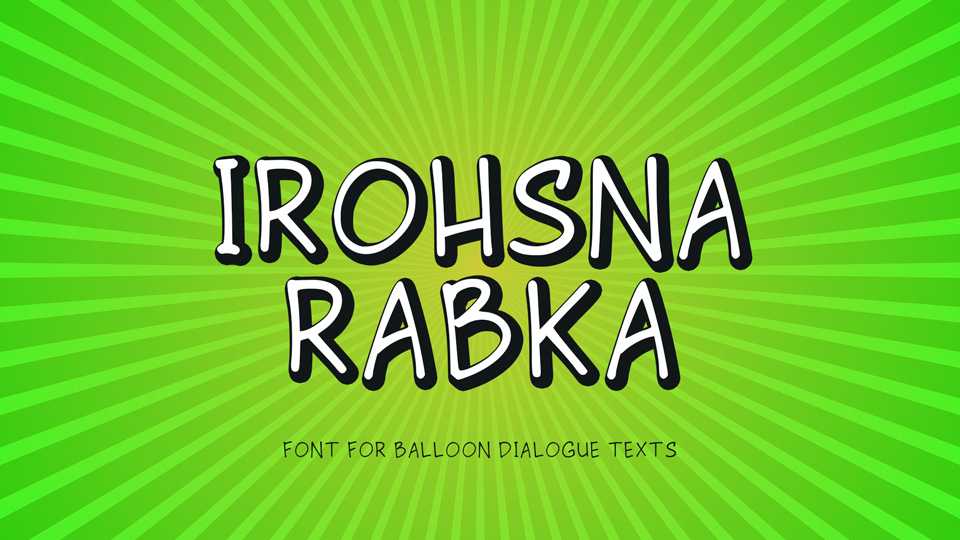
Download Irohsna Rabka font, a simple and organic handwritten typeface designed for lettering dialogue balloons in comic books. With its clarity and legibility, Irohsna Rabka font is perfect for comic artists, to use it for texts/dialogues in comics.
Designer: Akbar Anshori